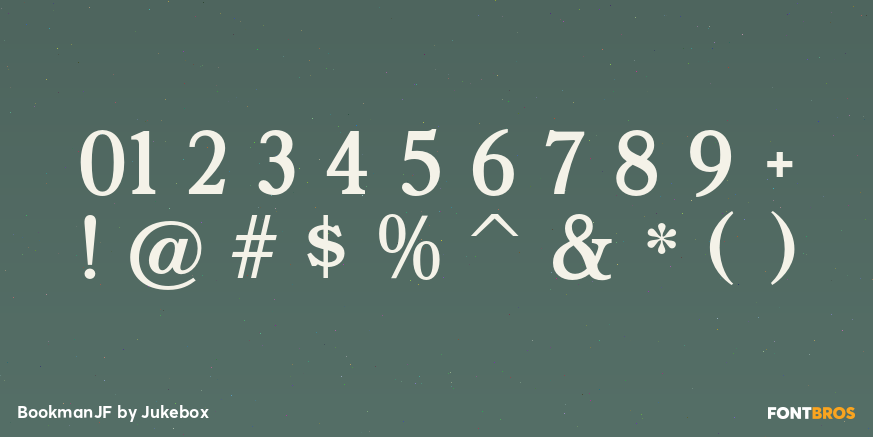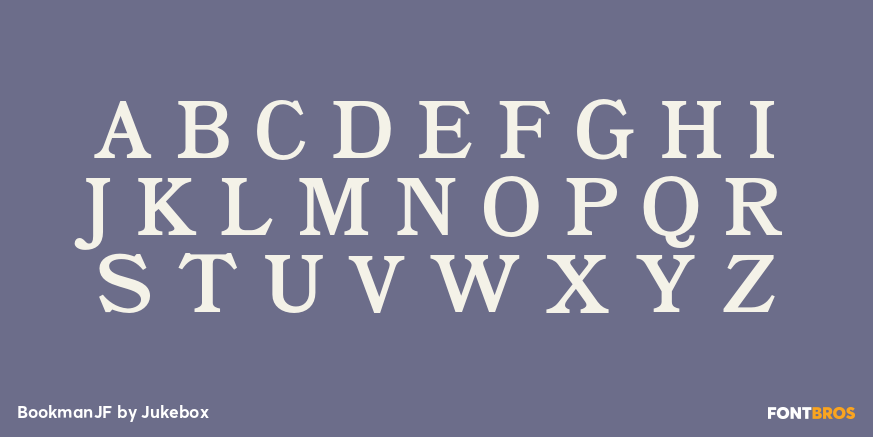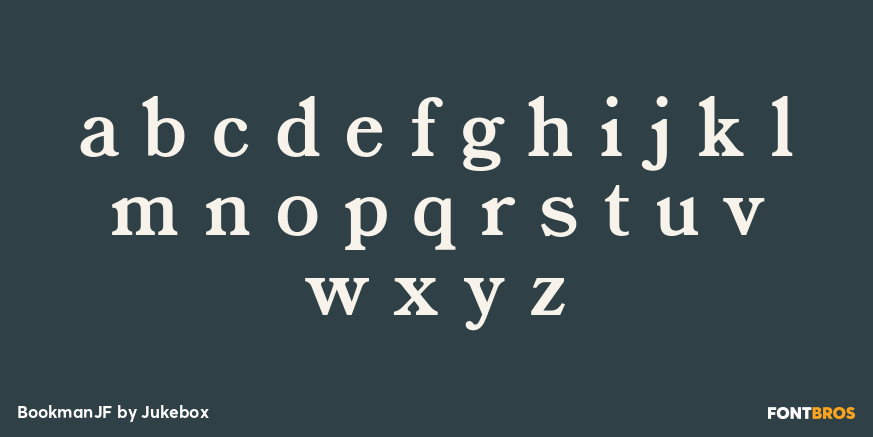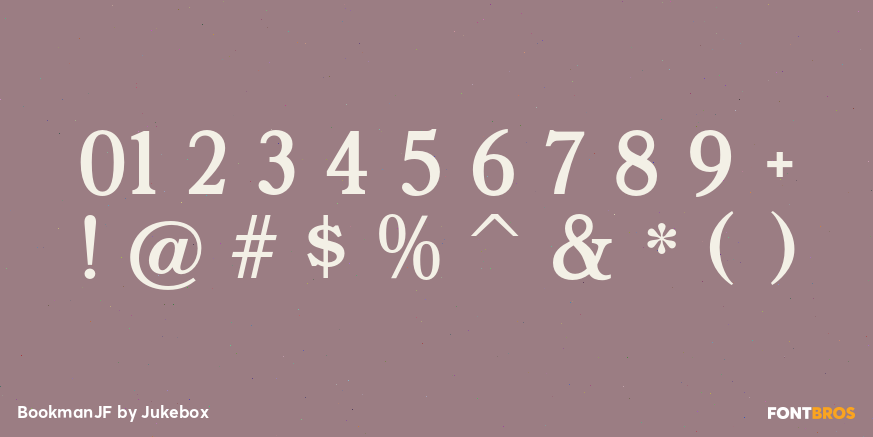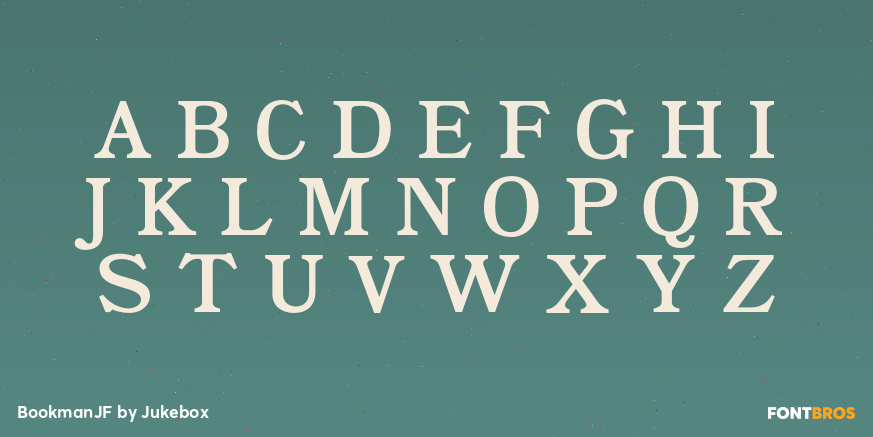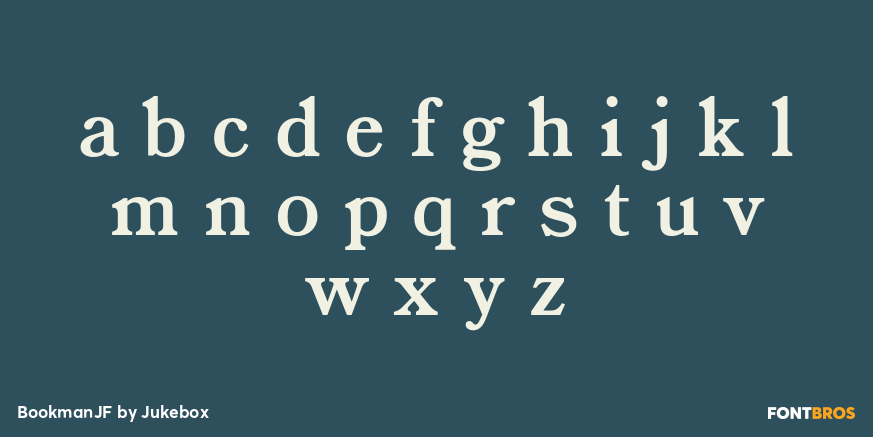
BookmanJF
Font Family by Jukebox
BookmanJF is a serif family with a distinctly groovy 1970s feel, pairing classic Bookman-inspired forms with a warm, retro personality. Its bold presence and rounded, friendly texture give it an expressive look that feels both nostalgic and highly usable for standout display work.
With 2 included styles—Roman (Regular) and Italic—this family offers a simple, versatile set for designers who want vintage flavor without overcomplicating the palette. It’s a strong fit for logos, packaging, posters, album-inspired graphics, and branding that leans into a soft, throwback tone.
Created by Jukebox, this family suits projects that need a serif with character: eye-catching headlines, retro-themed merchandise, and decorative layouts that benefit from a little 1970s swagger.